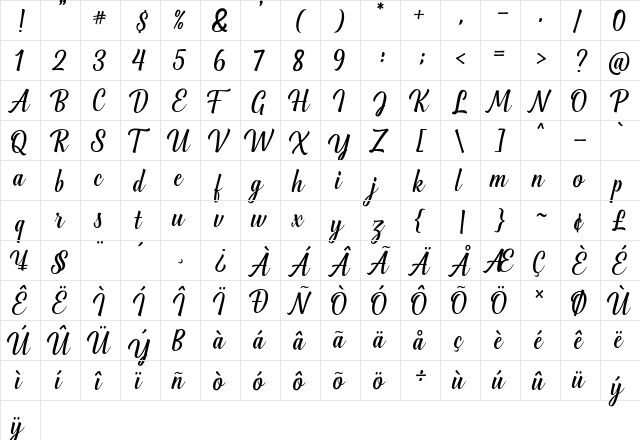
Greenlight Script Regular
Design Context for Greenlight Script Typeface
Greenlight Script brings a calligraphic fluidity to the page — its connecting strokes and expressive curves give it an unmistakably human quality. Its slender proportions lend an understated elegance to any composition.
Font Pairing: Combine Greenlight Script with a simple geometric sans for maximum contrast — the tension between flowing curves and clean structure is a classic typographic pairing.
Pro Tip: Use Greenlight Script for short runs of text — names, titles, or taglines. Extended body copy in script faces tires the eye quickly.